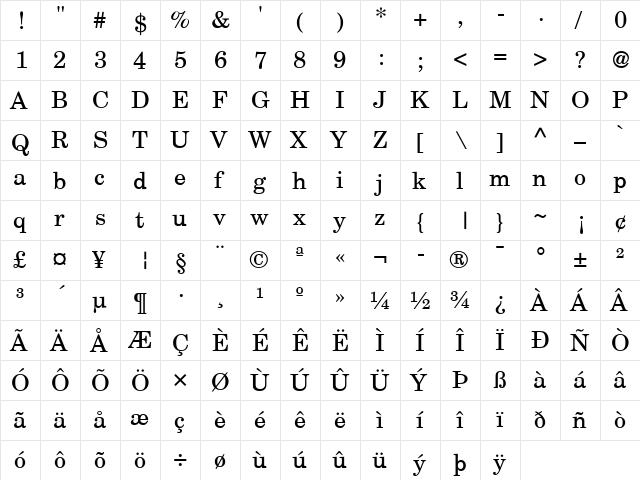
Century Schoolbook L Regular
Design Context for Century Schoolbook L Typeface
Century Schoolbook L is a composed and adaptable typeface that performs quietly and consistently across a wide range of design contexts.